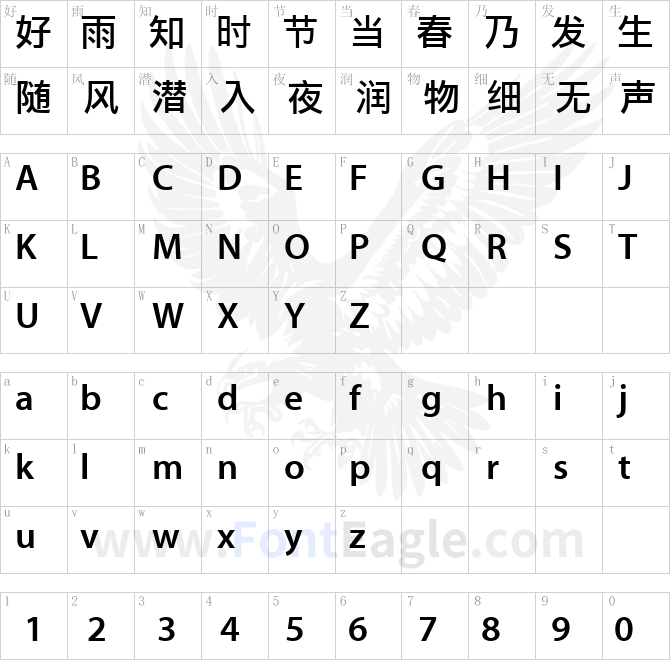
iLiHei is a great font, widely used in graphic design, single-page menu design, poster design and other fields, and is deeply loved by designers.iLiHei download.